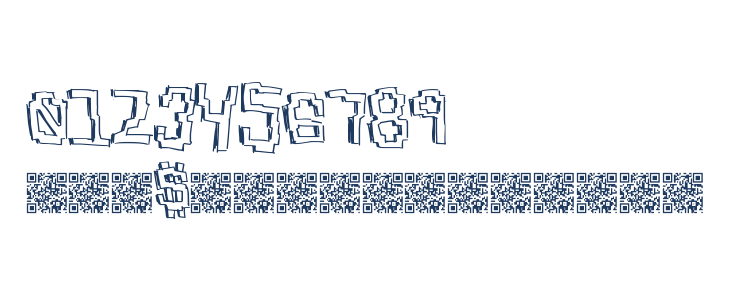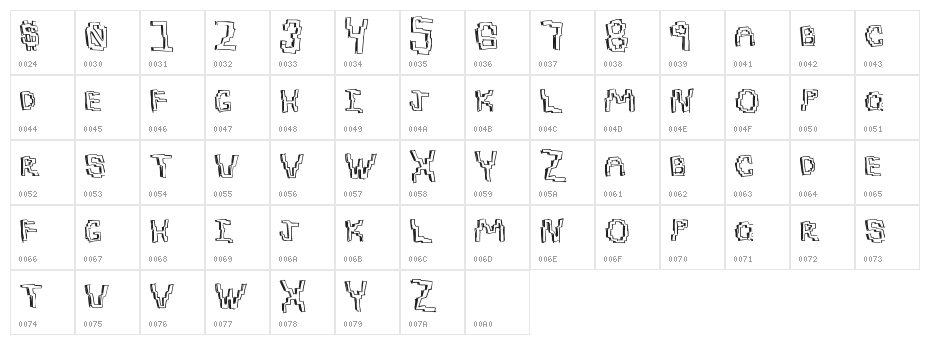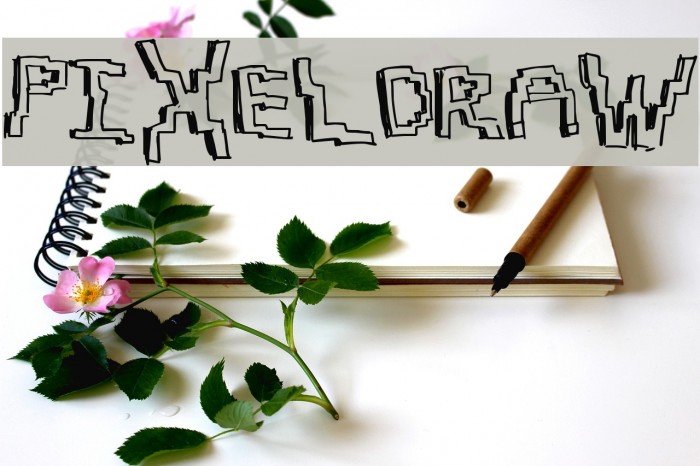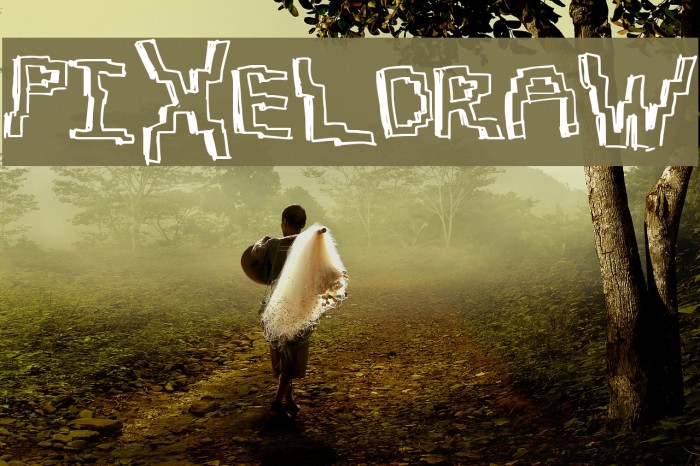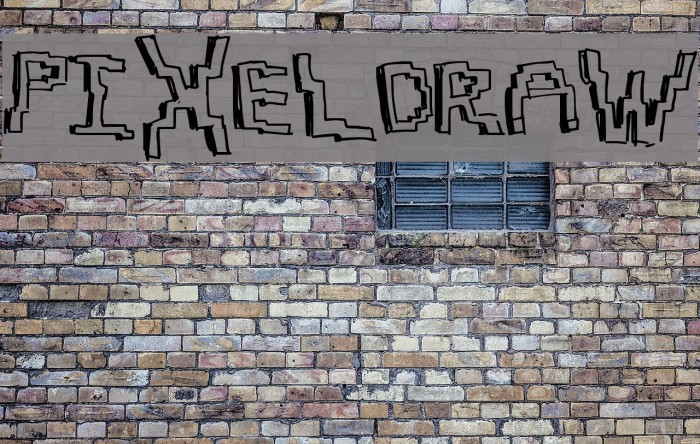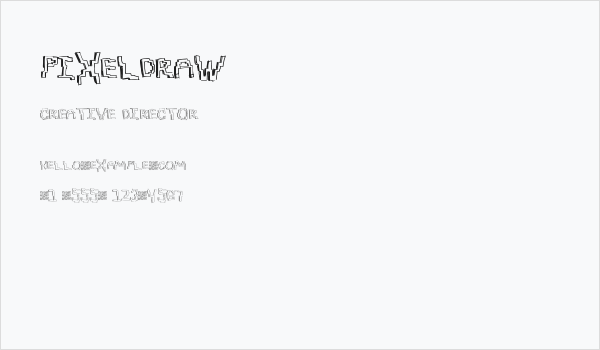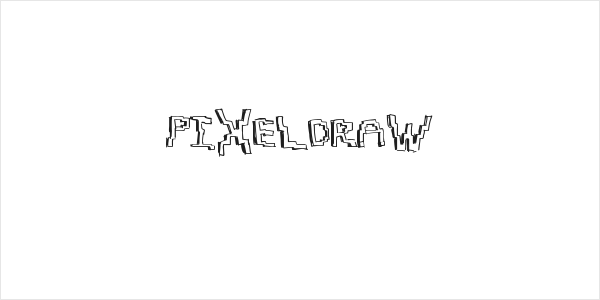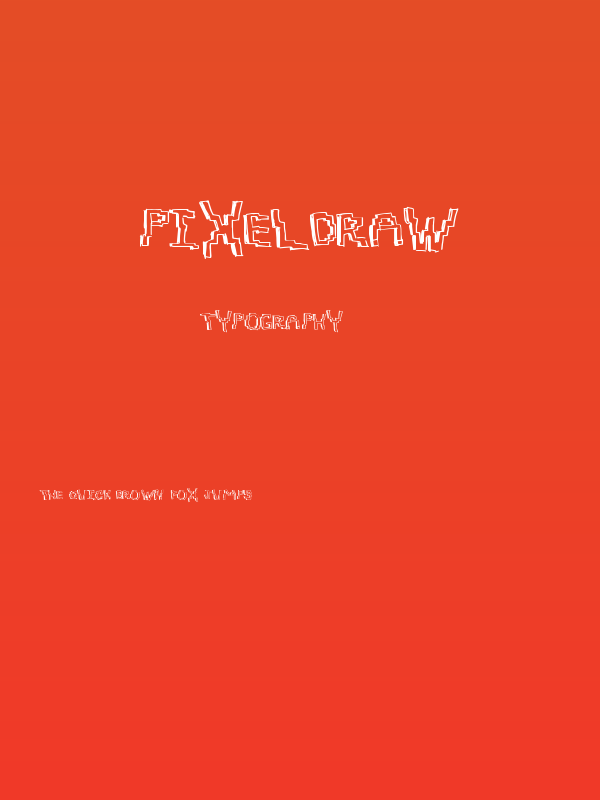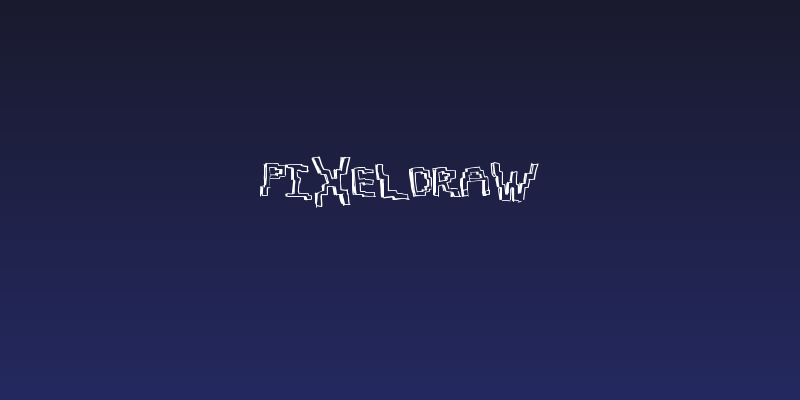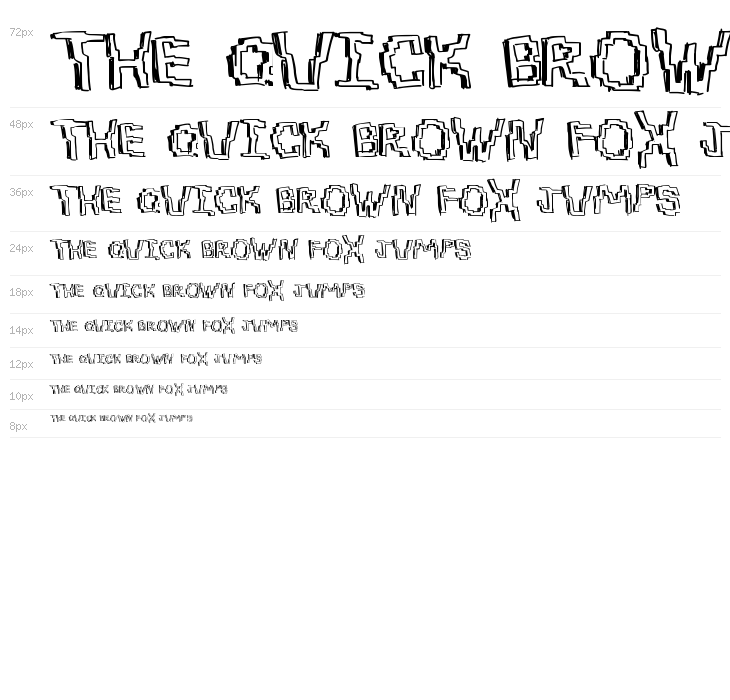
PixelDraw Font
PixelDraw Description
This font features a unique, pixelated design that mimics the appearance of digital art or retro video game graphics. Each character is constructed with a series of jagged, angular lines that create a sense of movement and energy. The letters and numbers are bold and eye-catching, making them ideal for creative and playful projects. The font maintains a consistent thickness throughout, with a medium contrast between the strokes. Its distinctive style is both modern and nostalgic, appealing to those who appreciate digital aesthetics and unconventional typography.
| Overall Style | Modern, Retro |
| Proposed Projects | Ideal for video game graphics, digital art projects, posters, and creative branding. |